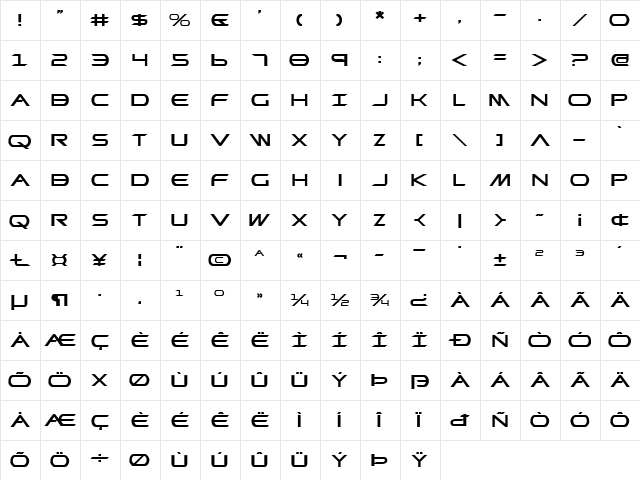
Promethean Expanded Expanded
Design Context for Promethean Expanded Typeface
Promethean Expanded is a composed and adaptable typeface that performs quietly and consistently across a wide range of design contexts.